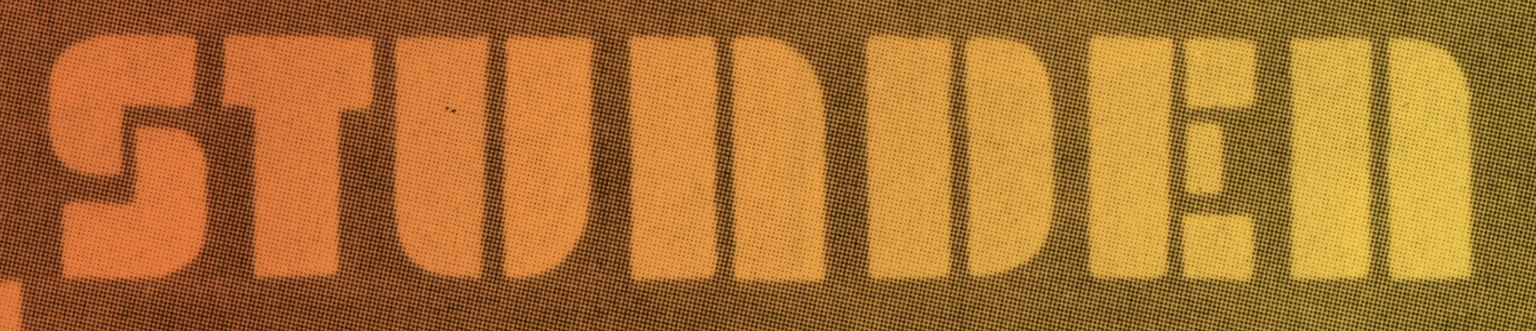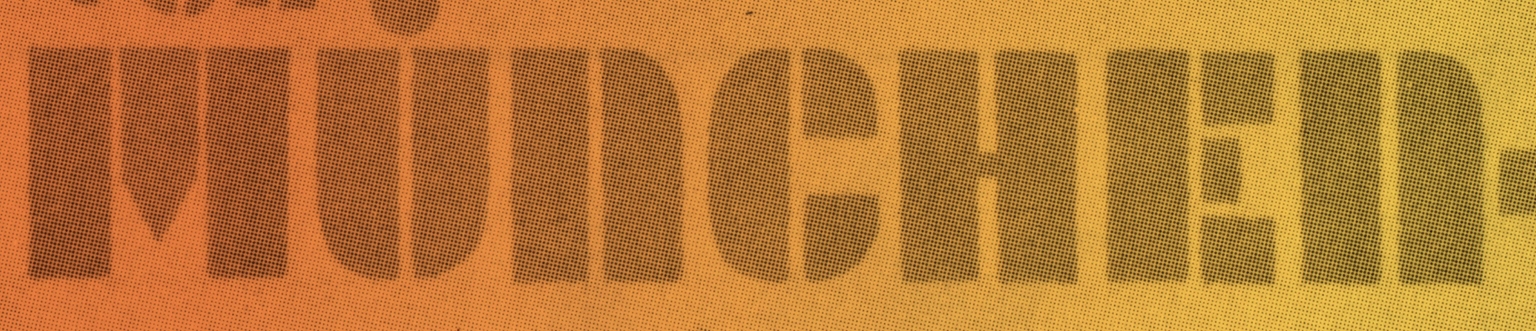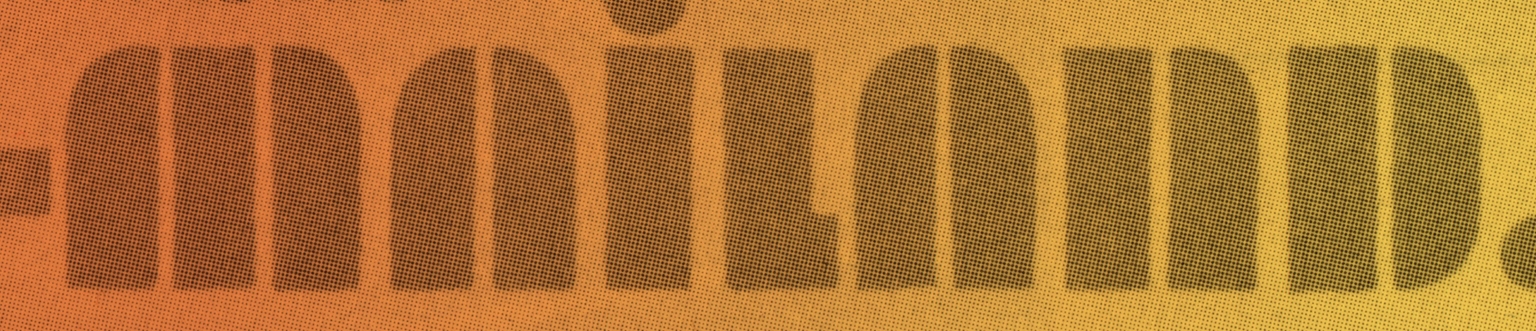
Wallraff
Wallraff is a modular stencil typeface designed by Ramiro Espinoza and inspired by the lettering on a German airline advertisement from the 1930s. The original design, by an unknown hand, reflected the fascination with technology and progress that defined the interwar years. Its stencil and geometric letterforms suggested both utility and a bold modern spirit. Espinoza adapted these features into a functional digital typeface, refining proportions and expanding the character set while keeping the directness of the source. Wallraff’s modular structure and clean cuts give it a distinctive look well suited for posters, signage, websites, brochures, exhibitions, and editorial projects.